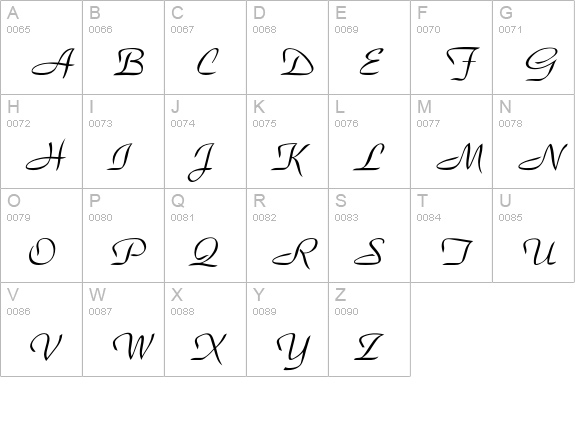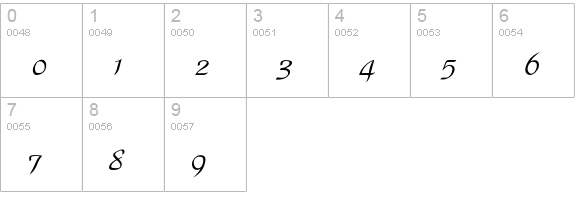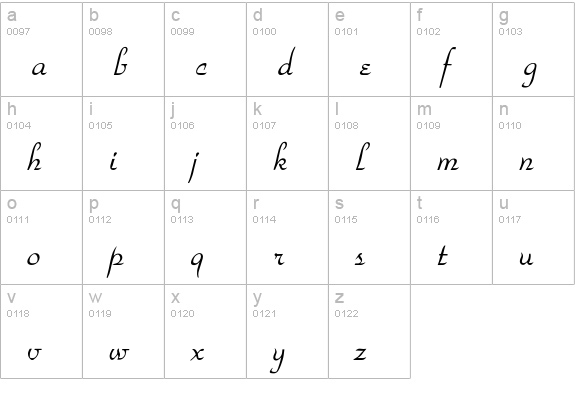
ParkAvenueFont Font Details
ParkAvenueFont is a stunning typeface that exudes elegance and sophistication. With its sleek lines and graceful curves, this font adds a touch of class to any design project. Whether you're creating a logo, designing a website, or crafting an invitation, ParkAvenueFont will elevate your work to new heights. What makes ParkAvenueFont even more enticing is that it is free. Yes, you read that right! This beautiful font is freely available to download at FontsMarket.com. Now, you can add a touch of luxury to your designs without breaking the bank. The versatility of ParkAvenueFont is truly remarkable. It is perfect for both formal and informal occasions, effortlessly blending into any theme or style. Its clean and legible characters ensure that your message is conveyed with clarity and professionalism. Captivate your audience with the timeless beauty of ParkAvenueFont. Its refined aesthetic will leave a lasting impression and make your designs stand out from the crowd. Whether you're a designer, a business owner, or a creative enthusiast, this font is a must-have in your toolkit. So why wait? Download ParkAvenueFont today from FontsMarket.com and unlock endless possibilities for your design projects. Embrace the freedom to create stunning visuals that capture attention and leave a lasting impact. With ParkAvenueFont, elegance is just a click away.